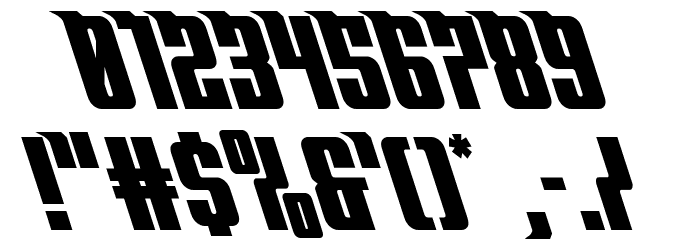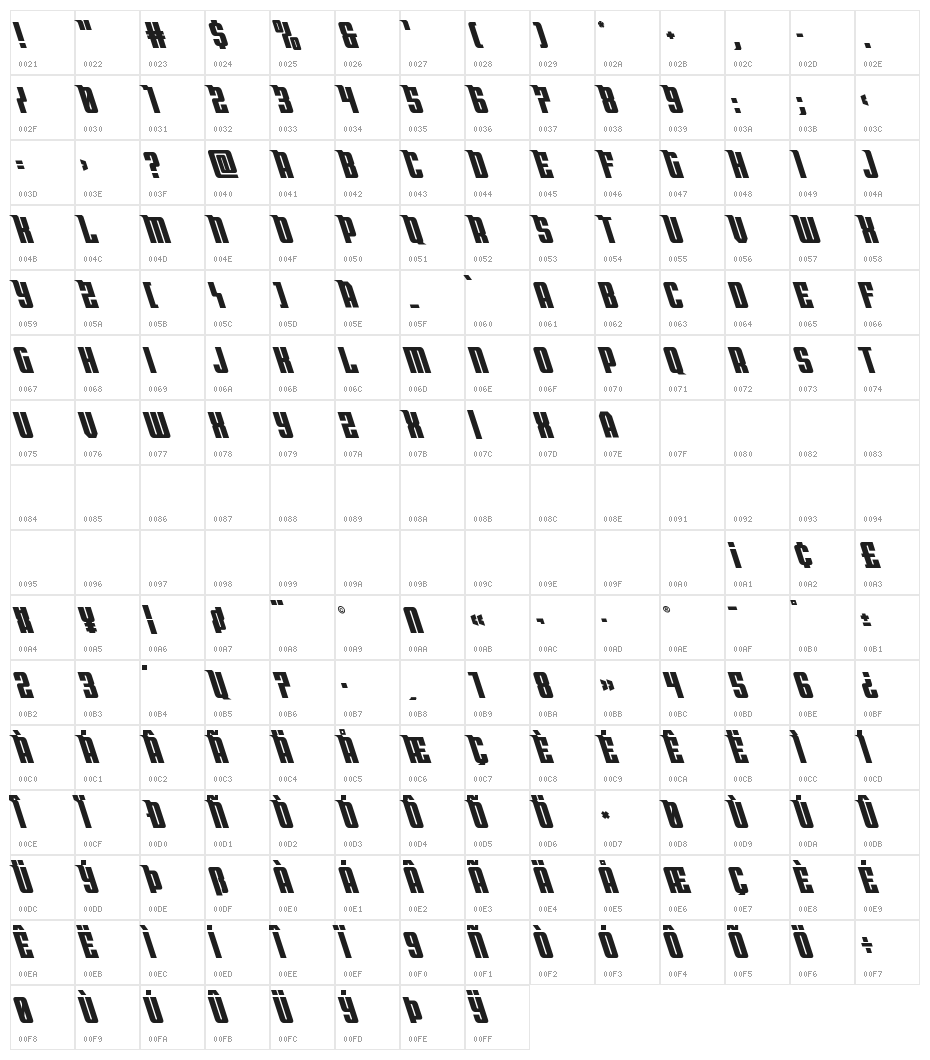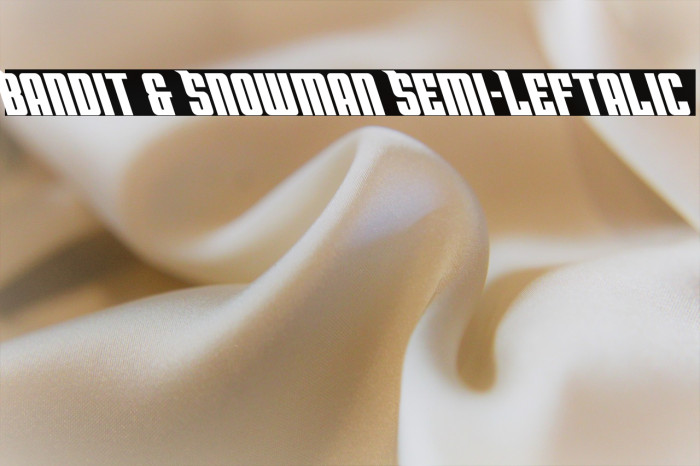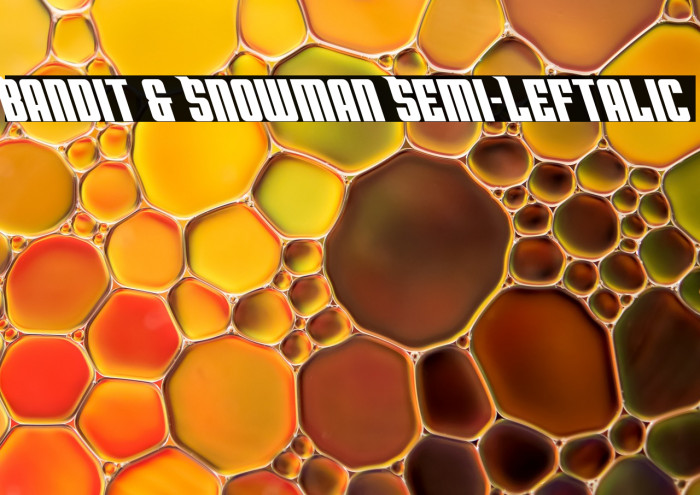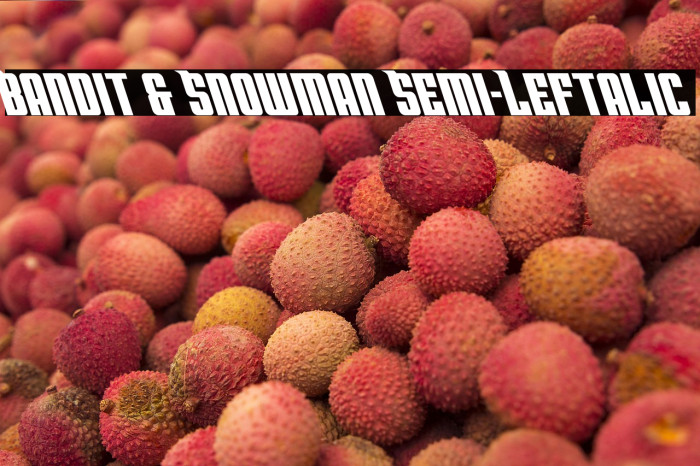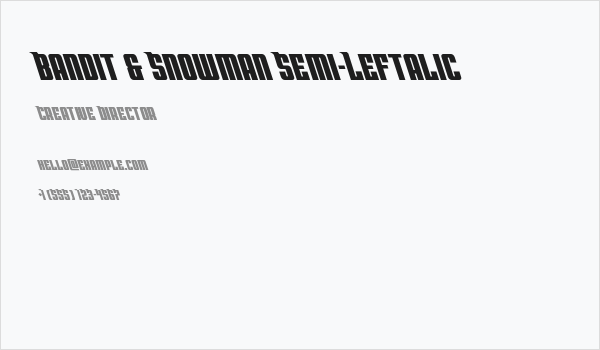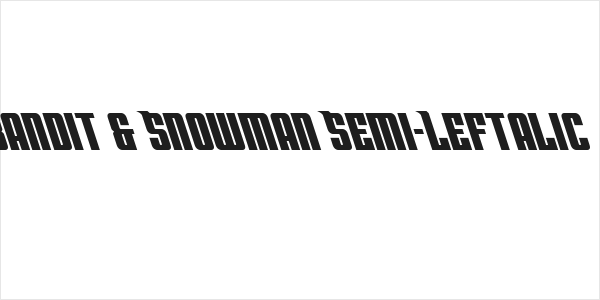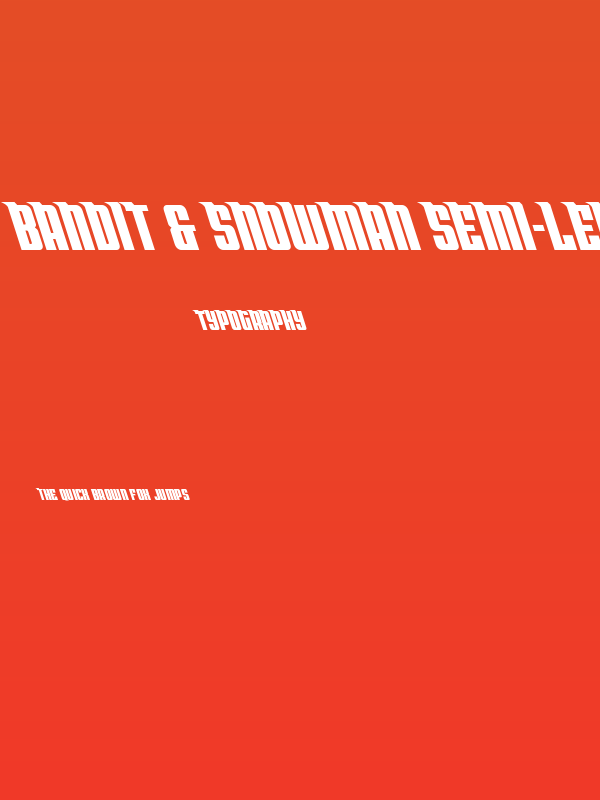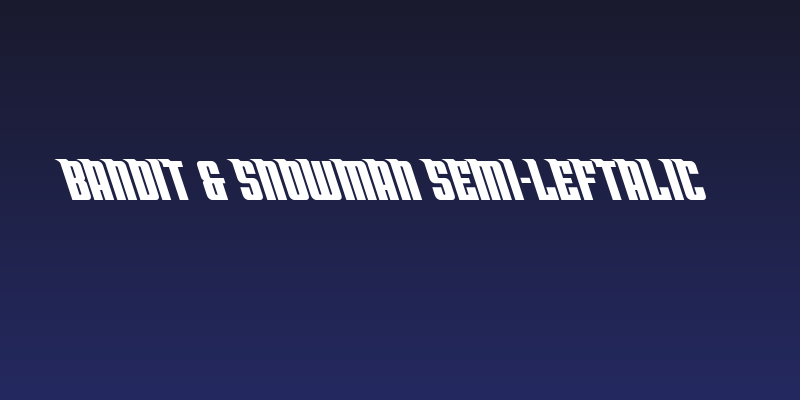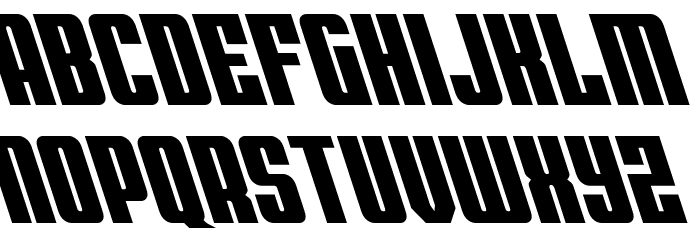
Bandit & Snowman Semi-Leftalic Font
Bandit & Snowman Semi-Leftalic Description
This font features a bold, dynamic style with a distinct slant to the left, giving it a sense of movement and energy. The characters are wide and blocky, with sharp angles and a strong presence. The uppercase and lowercase letters maintain a consistent weight, contributing to a cohesive look. The numerals and special characters are designed to match the boldness and angularity of the letters, ensuring uniformity across all glyphs. This font's unique style makes it stand out, ideal for attention-grabbing designs.